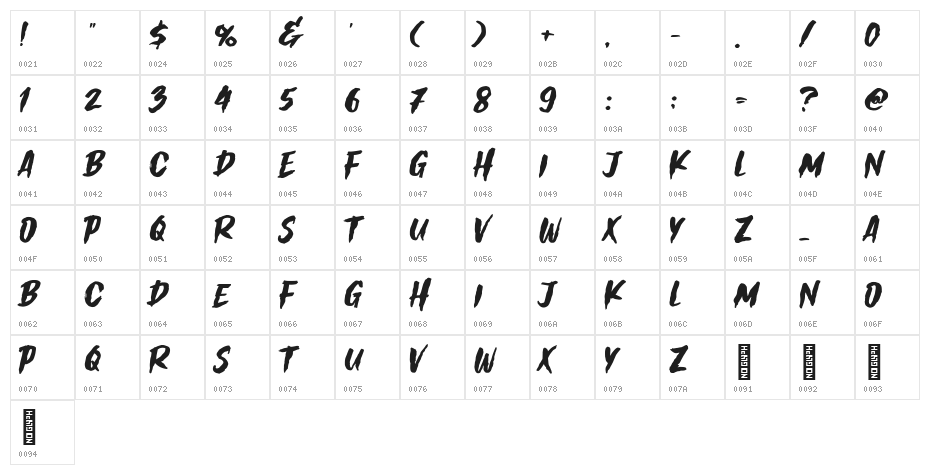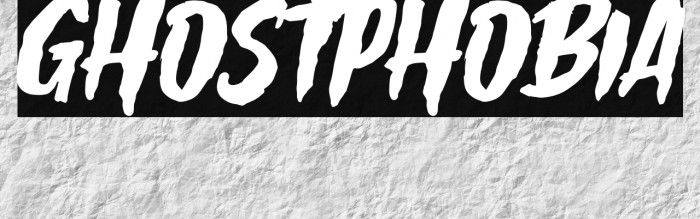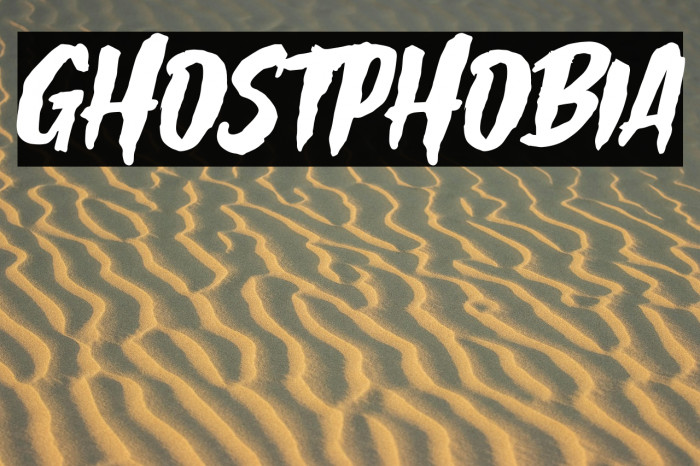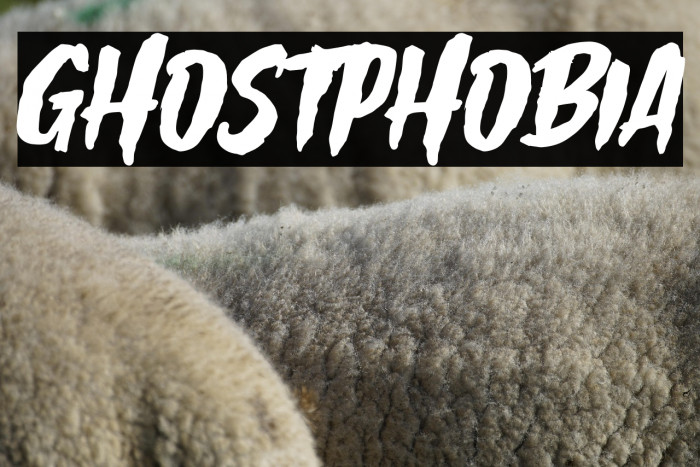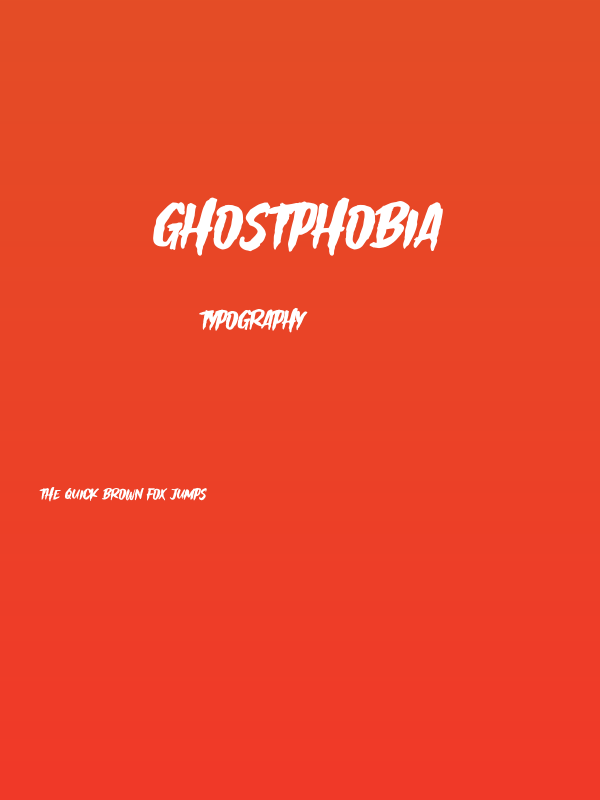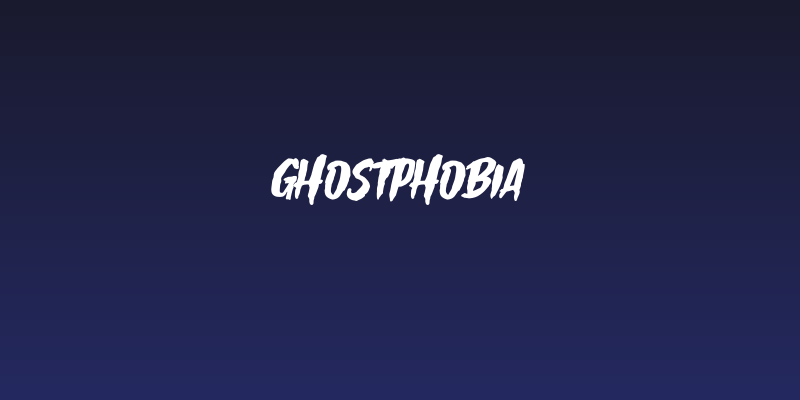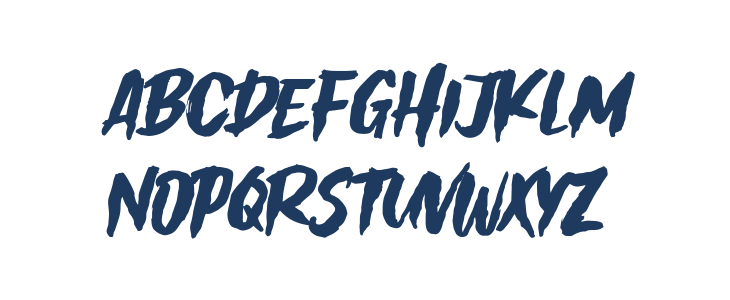
Ghostphobia Font
Ghostphobia Description
This font exudes a bold and energetic presence with its brush-like strokes and dynamic character shapes. The uppercase and lowercase letters are crafted with a sense of movement, giving an impression of speed and spontaneity. The numbers and special characters maintain this lively style, ensuring consistency across all elements. The font's irregular edges and varying stroke thickness add a handmade, artistic touch, making it stand out in any design. Its unique style is perfect for projects that require a sense of urgency or excitement, such as posters, event flyers, or branding for creative industries.
| Proposed Projects | Ideal for posters, event flyers, branding for creative industries, and any design needing a lively touch. |